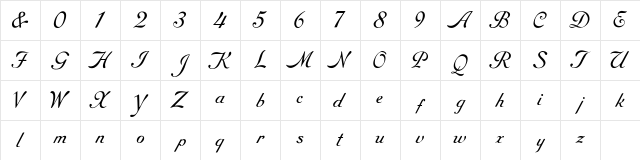
RoundHand Free Regular Free Font
RoundHand Free Regular
Foundry: Paulo W
Design Context for RoundHand Free
RoundHand Free flows with the natural rhythm of handwritten lettering, making it ideal for designs that call for warmth and personal expression.
Font Pairing: Combine RoundHand Free with a simple geometric sans for maximum contrast - the tension between flowing curves and clean structure is a classic typographic pairing.
Pro Tip: Use RoundHand Free for short runs of text - names, titles, or taglines. Extended body copy in script faces tires the eye quickly.